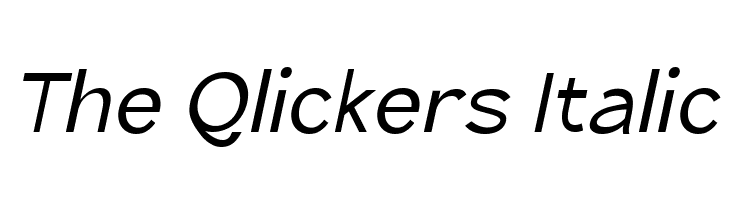
• The Qlickers Bold Italic schriftart
A bold, italicized font with a modern and sleek design.
• The Qlickers Italic schriftart
A sleek, modern italic font with smooth curves and clean lines.
• The Qlickers Regular schriftart
A modern, geometric sans-serif font with balanced proportions and clear readability.
• The Quadro schriftart
A flowing, cursive font with elegant, elongated strokes and a modern calligraphic style.
• The Quakeer schriftart
A bold, distressed font with a playful and rugged appearance.
• The Quality Brave Regular schriftart
A bold, intricate blackletter font with a medieval aesthetic.
• The Queen Font schriftart
A playful, modern handwritten font with rounded edges and consistent character height.
• The Queen Regular schriftart
A classic serif font with elegant, well-proportioned characters and refined serifs.
• The Queenís Gambit Regular schriftart
A modern, geometric font with sharp angles and clean lines.
• The Queenthine schriftart
A dynamic, handwritten font with fluid strokes and a lively, expressive style.